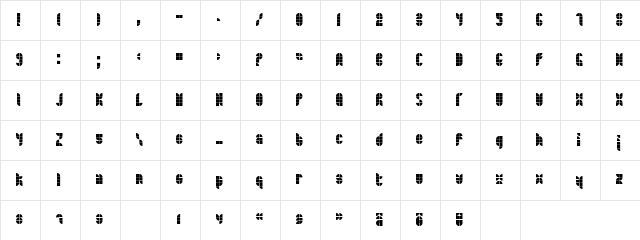
Bath Normal Free Font
Bath Normal
Design Context for Bath
Bath is a composed and adaptable typeface that performs quietly and consistently across a wide range of design contexts.